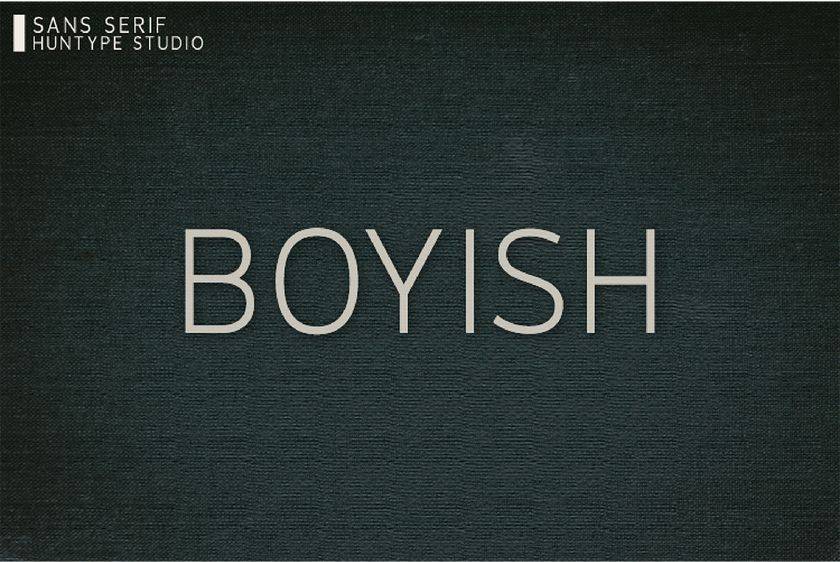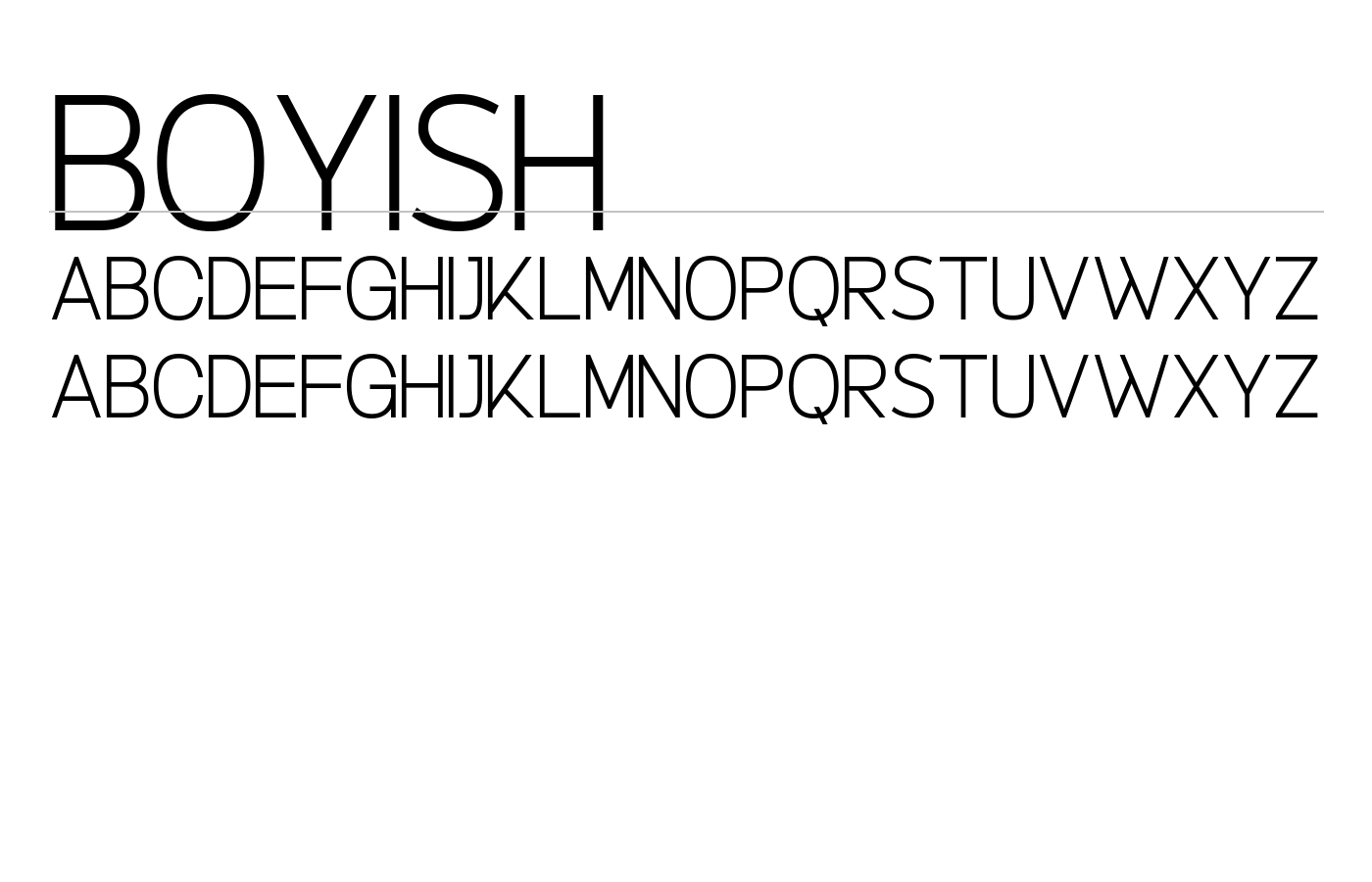
Boyish is a sleek, modern sans serif font characterized by its tall, narrow letterforms and minimalist design. With its thin strokes and consistent weight, it conveys a clean, contemporary feel that works well for stylish branding, editorial headlines, and fashion-related projects. Its elegant simplicity makes it ideal for projects seeking a sophisticated yet approachable modern look.
Boyish Font
About Boyish Font